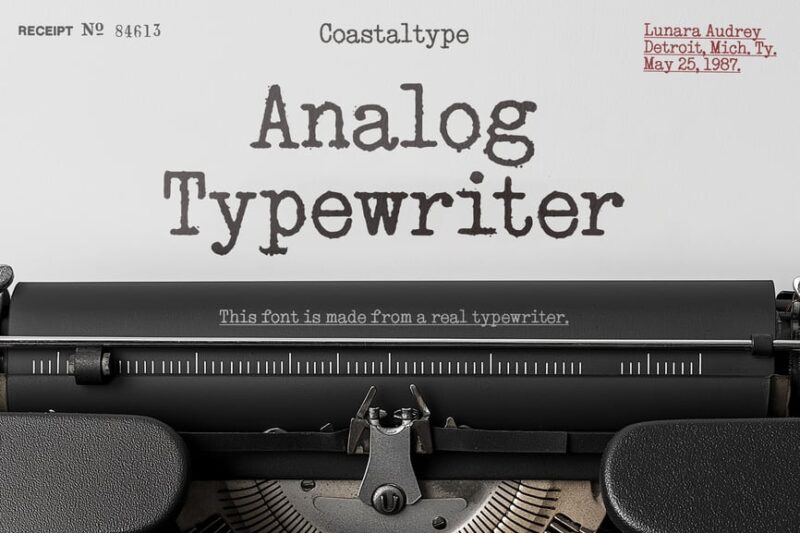
Transform your text into vintage typewriter magic with our free Typewriter font generator! Perfect for creating nostalgic designs that capture the classic clickety-clack charm of old-school writing. Our tool features the iconic monospaced font style that’s been telling stories for over a century.
Analog Typewriter
Analog Typewriter is a serif font that captures the essence of vintage typewriters and official documents. Its imperfect, slightly distressed appearance adds authenticity to designs aiming for a nostalgic or retro feel.
Detective – Typewriter Typeface
Detective - Typewriter Typeface
Detective is a serif typewriter font that evokes a sense of mystery and intrigue. Its characters are designed to mimic the look of old detective reports, perfect for creating atmospheric designs related to crime, mystery, or noir themes.
Notenic – Typewriter Typeface
Notenic - Typewriter Typeface
Notenic is a serif typewriter font that combines classic typewriter aesthetics with modern design sensibilities. Its clean lines and subtle imperfections make it ideal for projects that require a touch of vintage charm without sacrificing legibility.
Not my type typewriter font
Not my type is a serif typewriter font that offers a highly realistic representation of typewritten text. Its irregular characters and varying ink densities create an authentic, lived-in look that’s perfect for designs aiming for maximum typewriter authenticity.